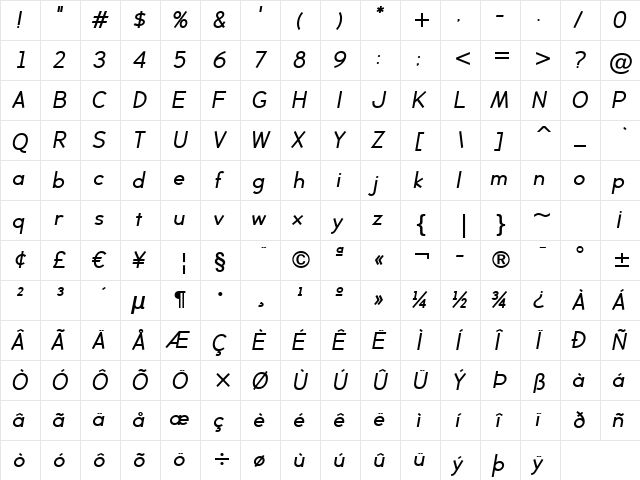
BacktalkSans BTN BoldOblique
Design Context for BacktalkSans BTN Typeface
BacktalkSans BTN takes a measured approach to typography — its balanced proportions and neutral character make it a reliable workhorse for both digital and print work. Its italic angle brings a sense of urgency and motion to the letterforms. Its bold stroke weight gives it real presence on the page.
Pro Tip: Use BacktalkSans BTN for emphasis, pull quotes, and subheadings where its slanted energy can add rhythm to the layout.